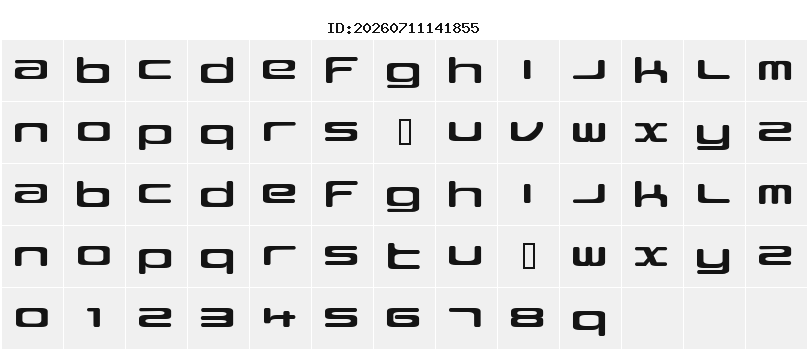
About Marble Force.ttf
Marble Force.ttf is a modern, elegant sans-serif font designed for ultimate readability and visual harmony. Perfect for branding, headlines, web design, and print materials.